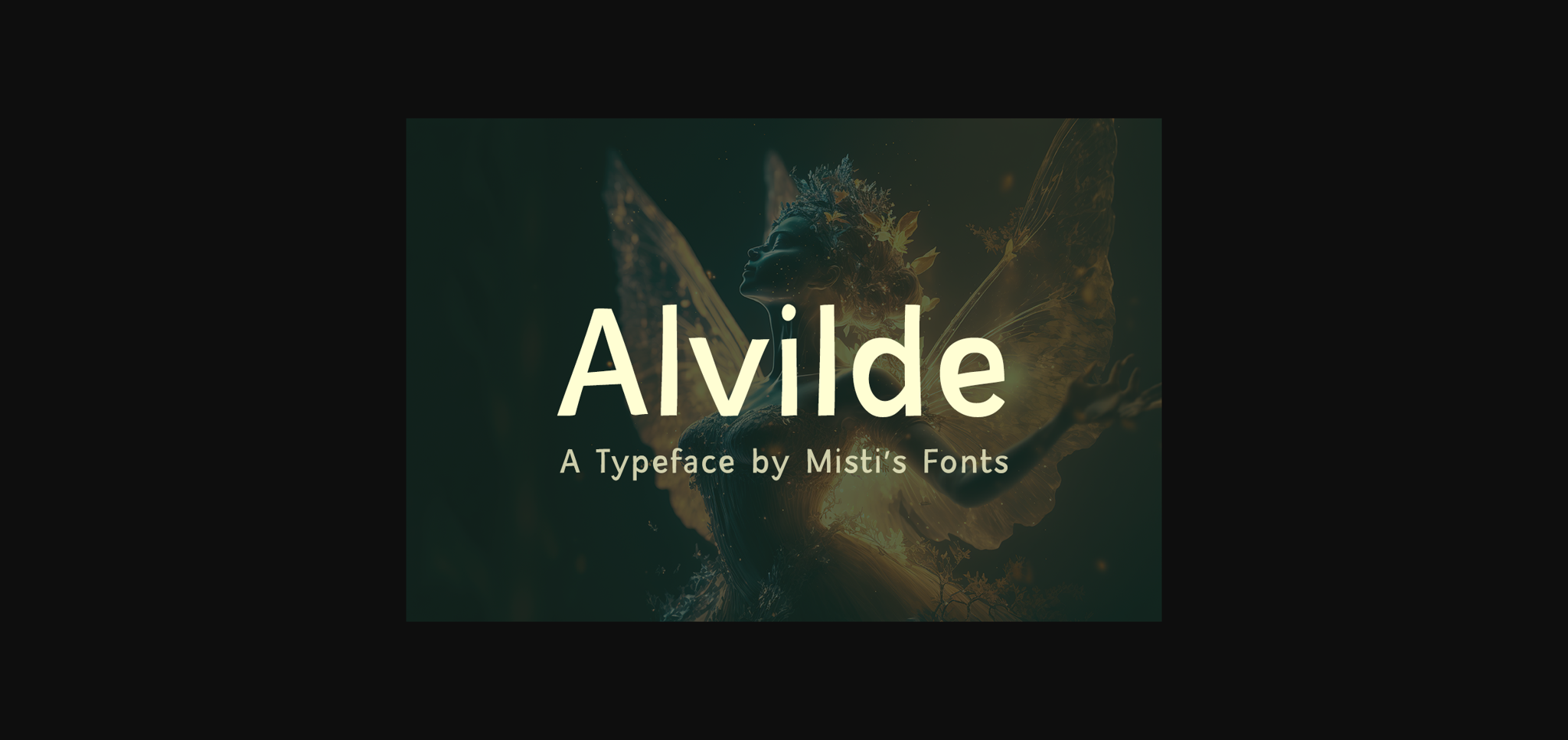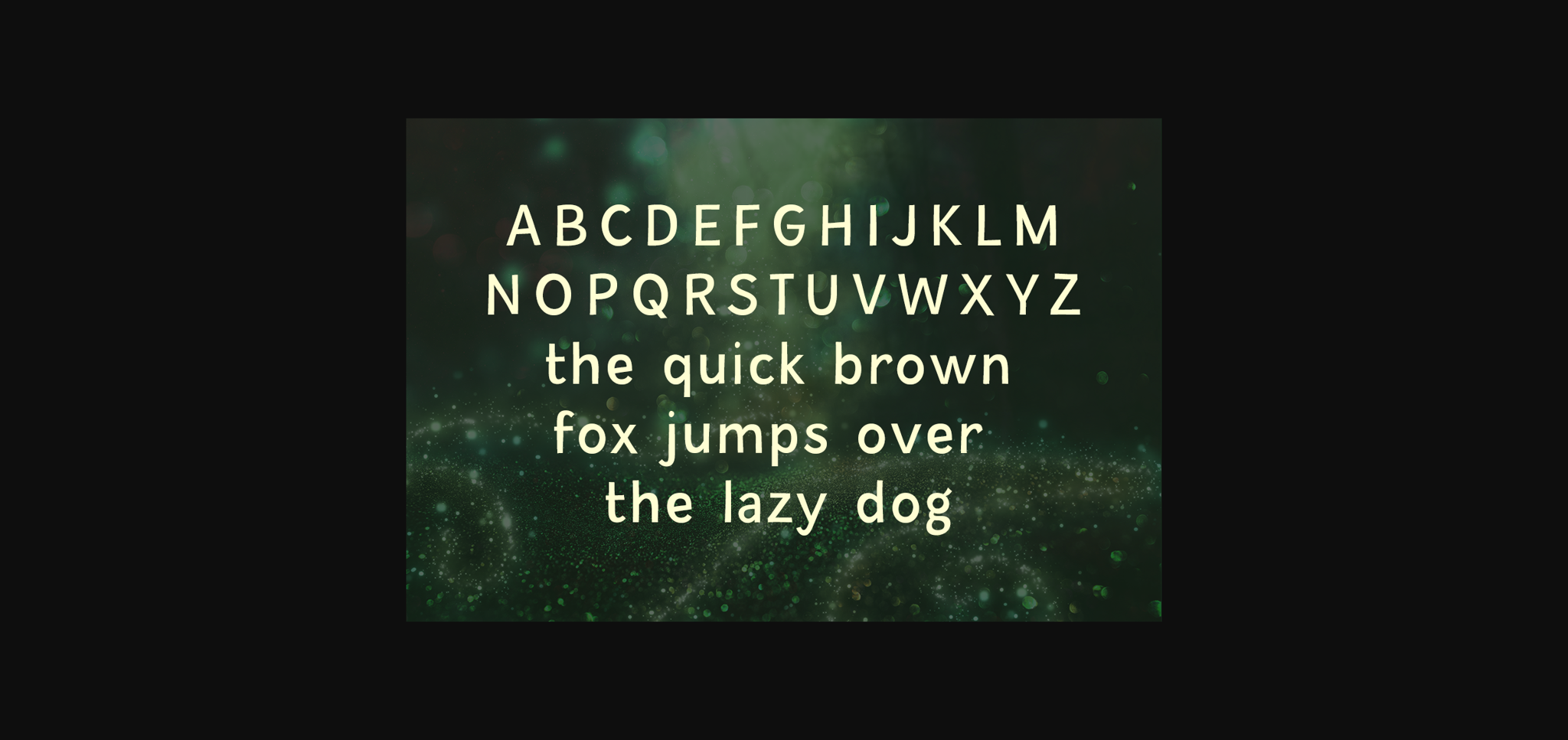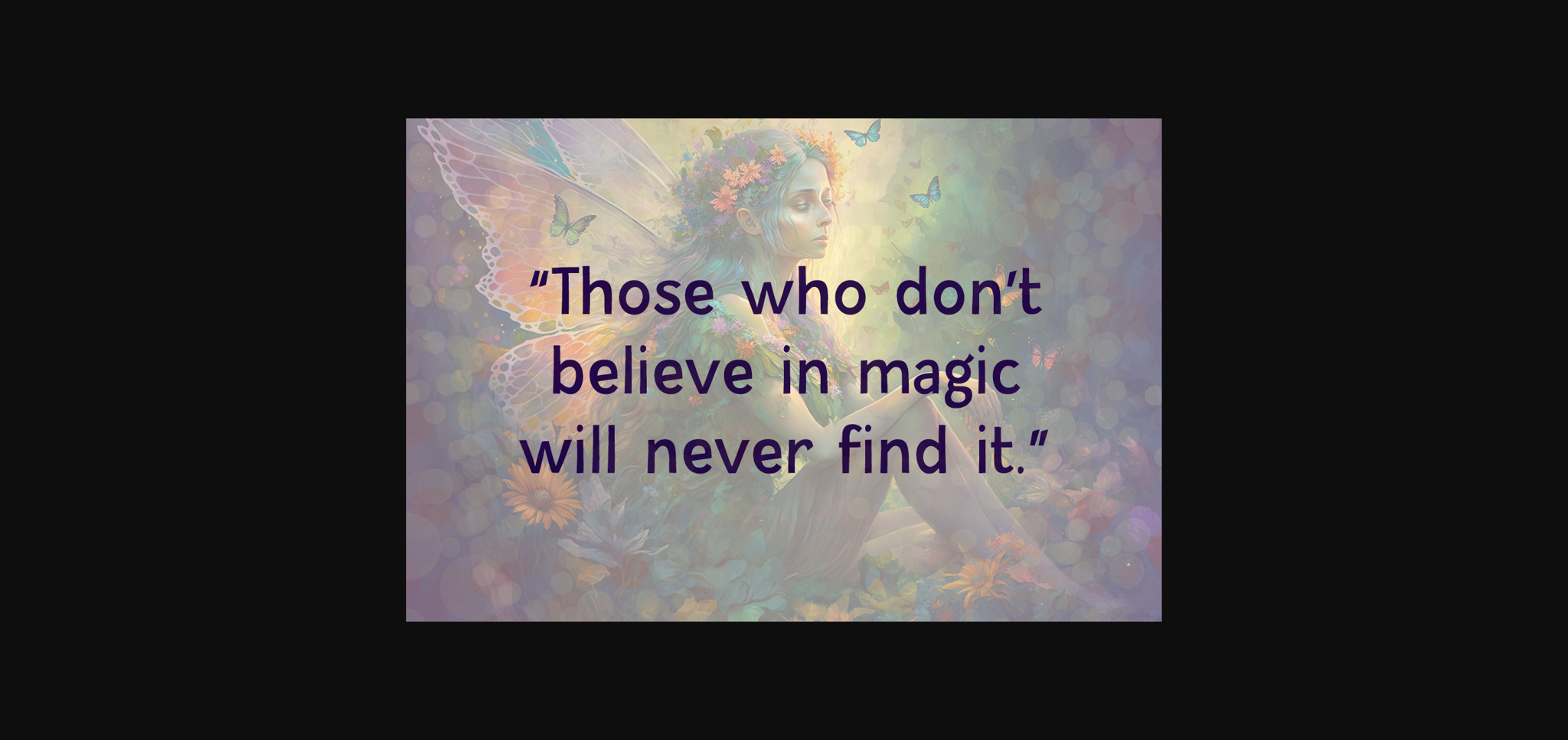
About Alvilde Font
Alvilde is a unique sans serif font that is perfect for those looking to add a touch of whimsy to their design projects. This font is perfect for creatives who want to add a playful and imaginative touch to their work.